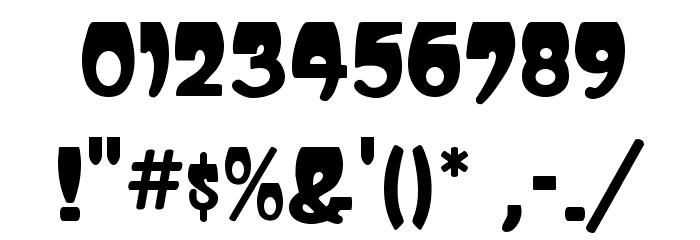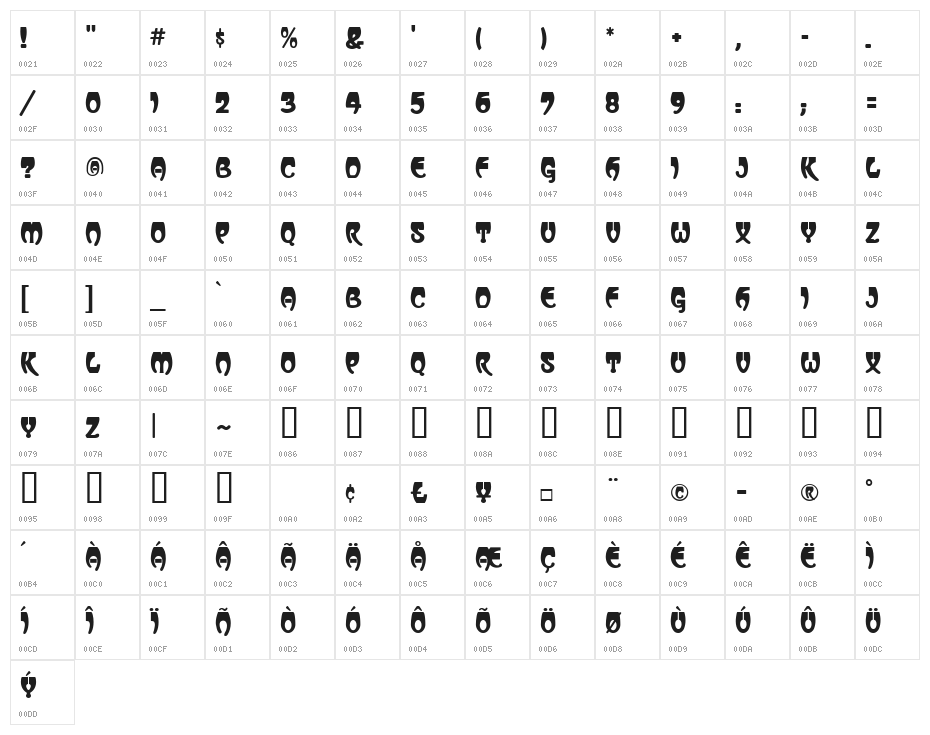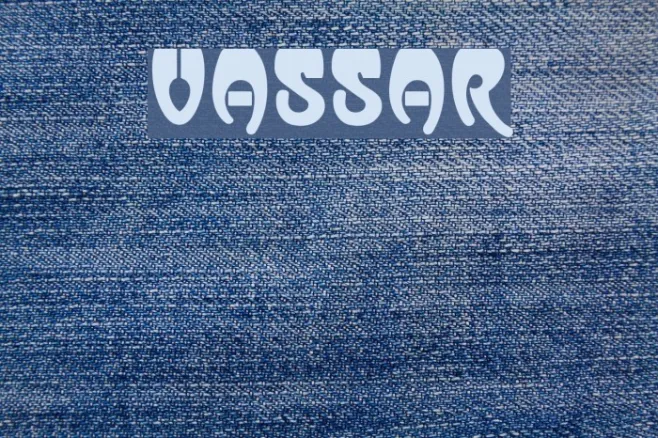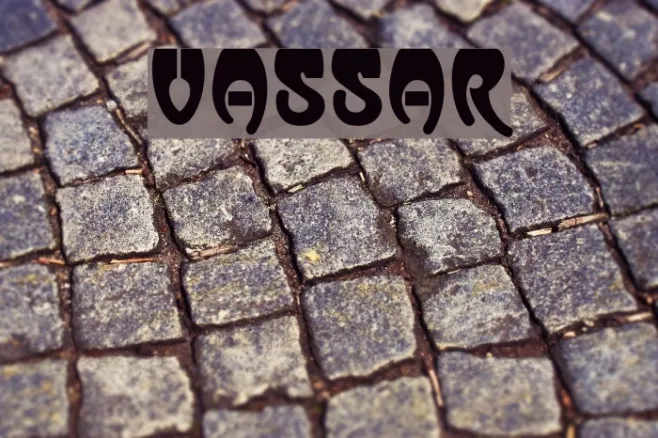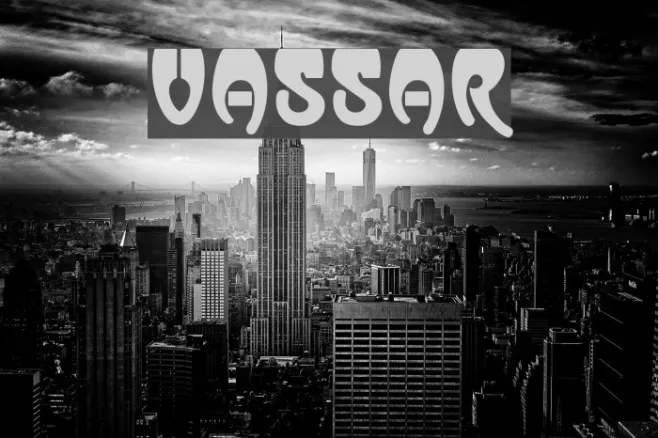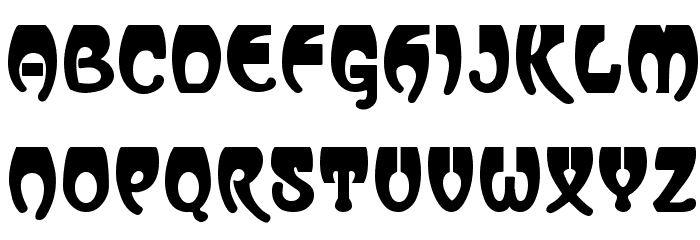
Vassar Font
Vassar Description
This font features a bold and dynamic style with thick, rounded strokes and a playful, retro aesthetic. The characters are uniquely shaped, with some letters incorporating unexpected curves and angles, giving it a distinctive and eye-catching appearance. The uppercase and lowercase letters maintain a consistent weight, contributing to a cohesive look. The numerals and special characters are equally bold, ensuring readability and visual impact. This font's design is reminiscent of vintage signage and posters, making it ideal for projects that require a touch of nostalgia and flair.
| Proposed Projects | Ideal for vintage-themed posters, retro branding, eye-catching headlines, and creative logo designs. |